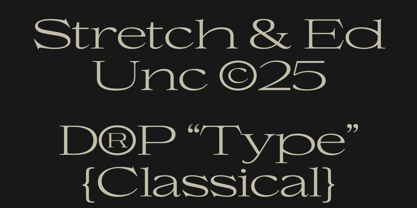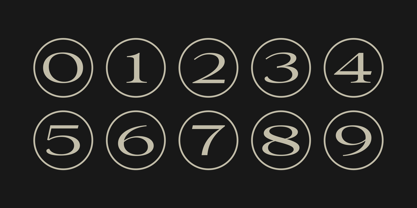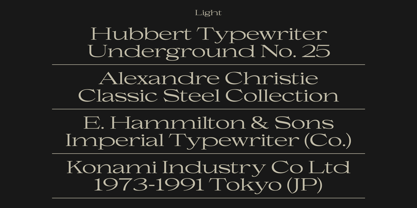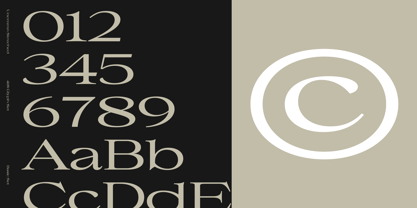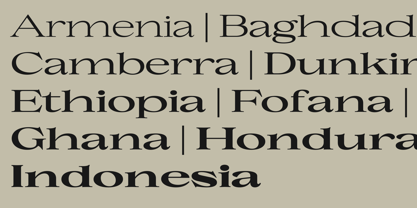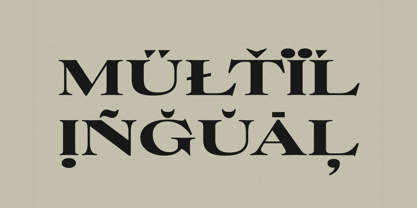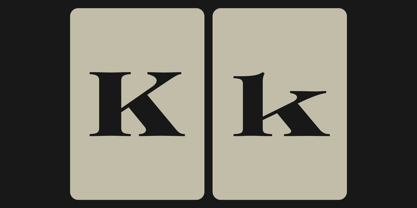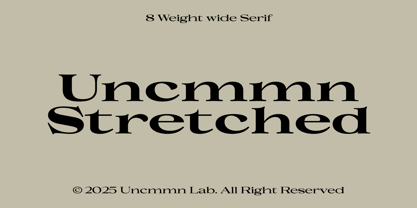
UNCMMN Stretched
von Uncmmn Lab
Die Schriftfamilie UNCMMN Stretched wurde von Wahyu Ichsan Fauzi entworfen und von Uncmmn Lab veröffentlicht. UNCMMN Stretched enthält 8 Stile und Familienpaketoptionen. Mehr über diese Familie
UNCMMN Stretched is a wide sans serif display typeface that exaggerates horizontal proportions to create a bold, attention-grabbing presence. Its extended letterforms and tight spacing give it a distinct visual rhythm—perfect for impactful titles, experimental layouts, and expressive branding. Stretched plays with distortion and scale while maintaining a sense of balance, making it ideal for designers looking to push typographic boundaries. With its unconventional width and strong personality, this typeface delivers a confident, futuristic tone with a graphic edge.
Designer: Wahyu Ichsan Fauzi
Foundry: Uncmmn Lab